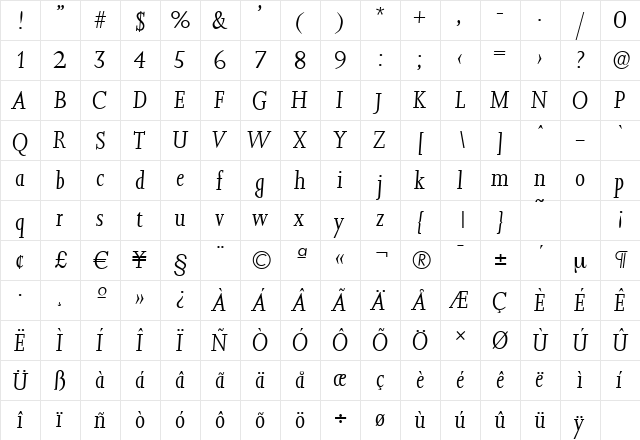
JessicaSerial-Light Italic Font Preview
Design Context for JessicaSerial-Light Typeface
JessicaSerial-Light is a composed and adaptable typeface that performs quietly and consistently across a wide range of design contexts. Its italic angle brings a sense of urgency and motion to the letterforms. Its slender proportions lend an understated elegance to any composition.
Pro Tip: Try JessicaSerial-Light for annotation and caption copy alongside an upright companion — the contrast in angle creates a dynamic but ordered typographic system.